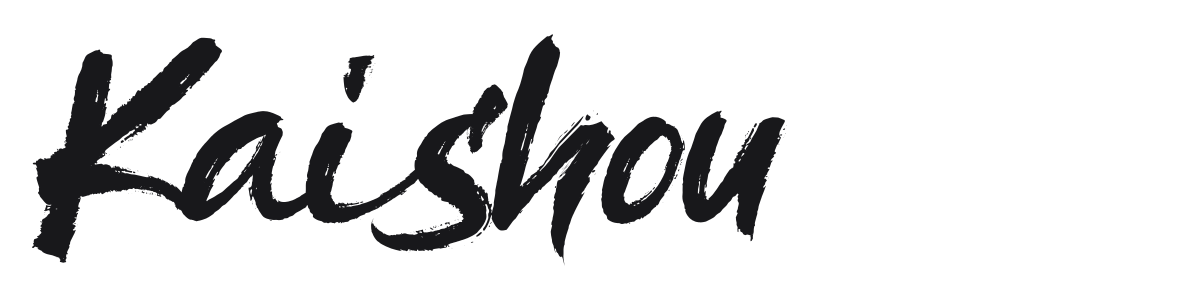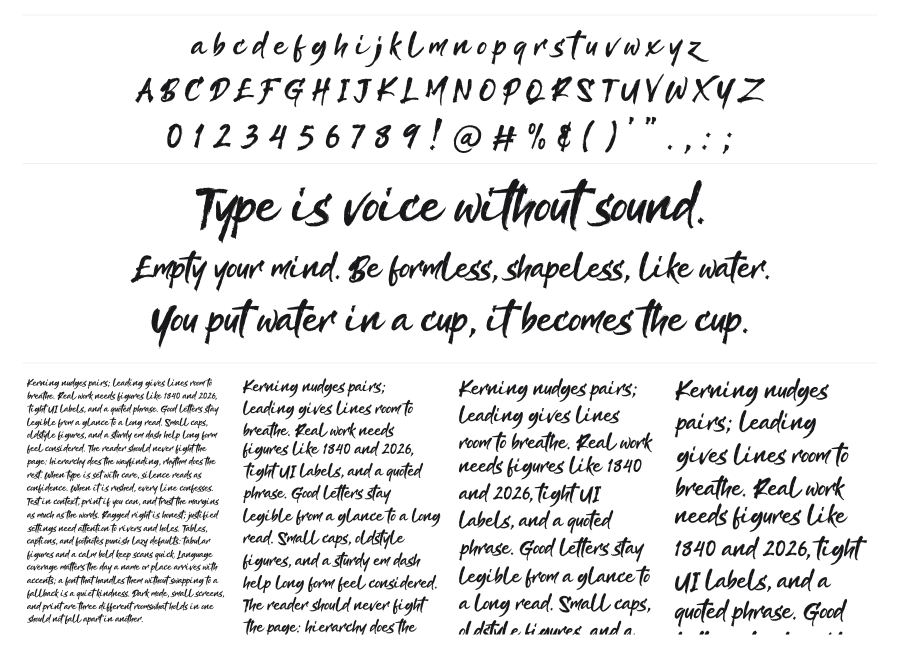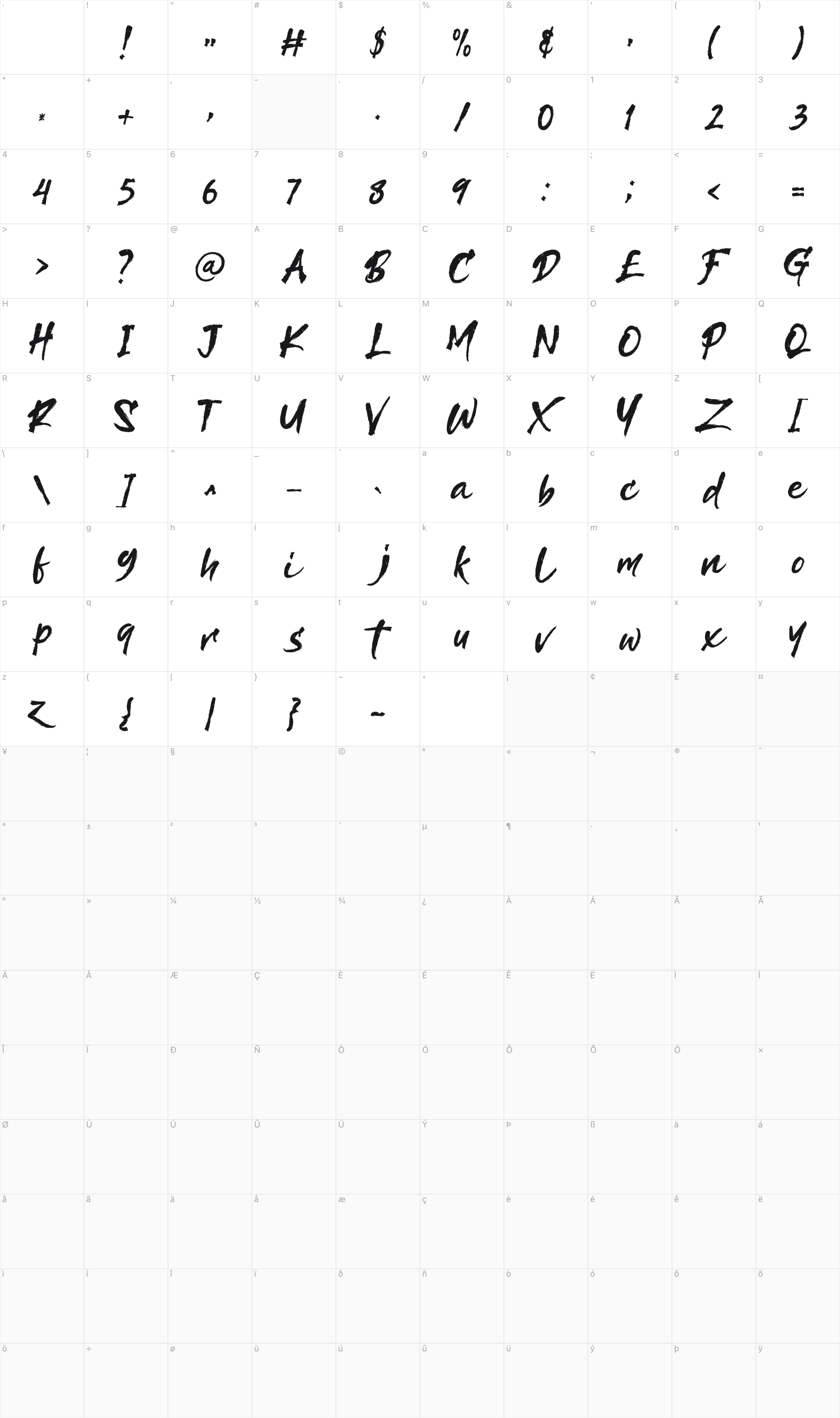
Kaishou
Kaishou is a bold brush script with heavy ink texture and the spontaneous energy of fast East Asian calligraphy applied to Latin letters. Thick downstrokes bleed into thin, whipping connectors, and rough ink drag gives every character a handmade, in-the-moment quality. It reads powerfully at large sizes where all that texture has room to breathe.